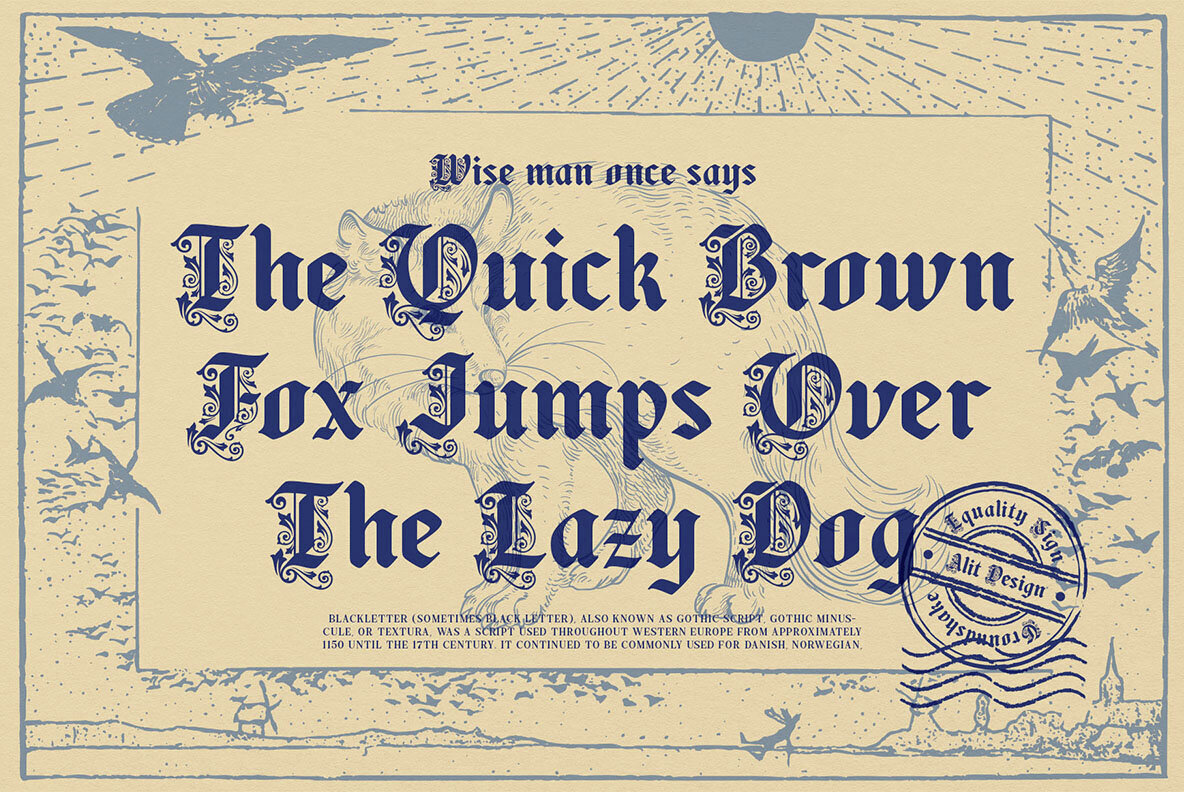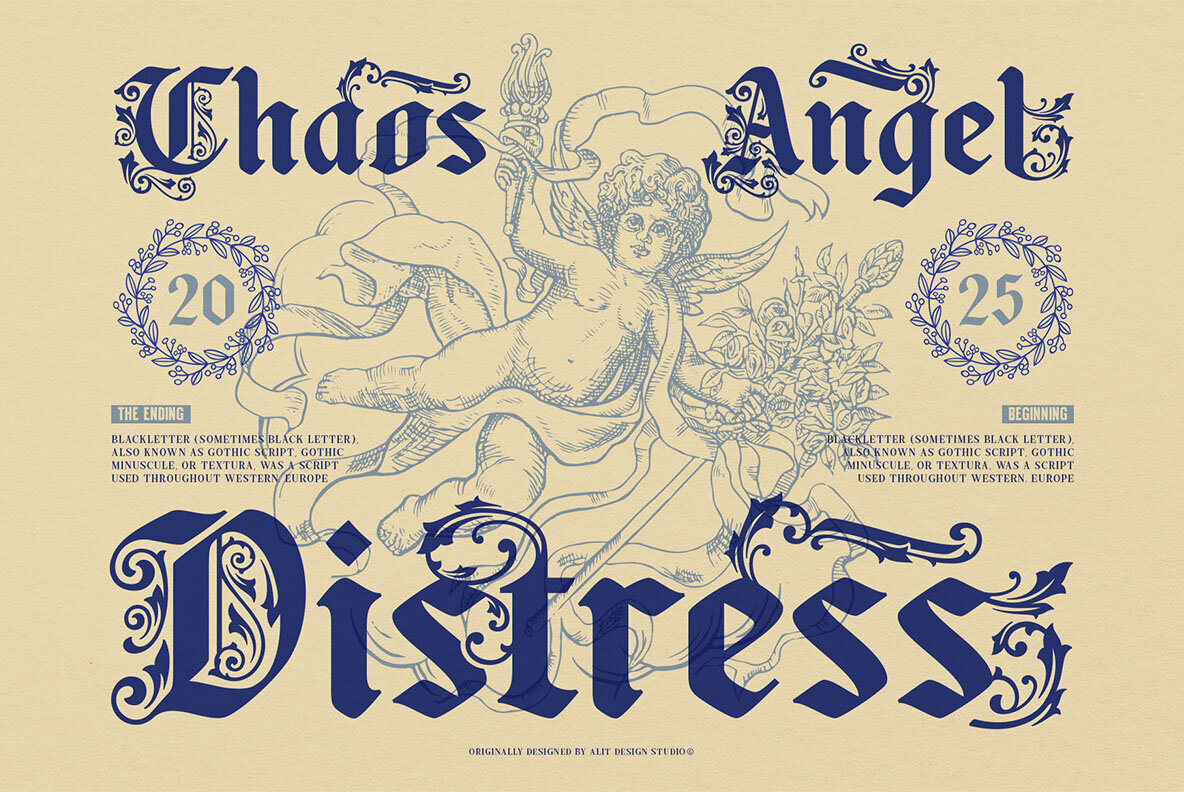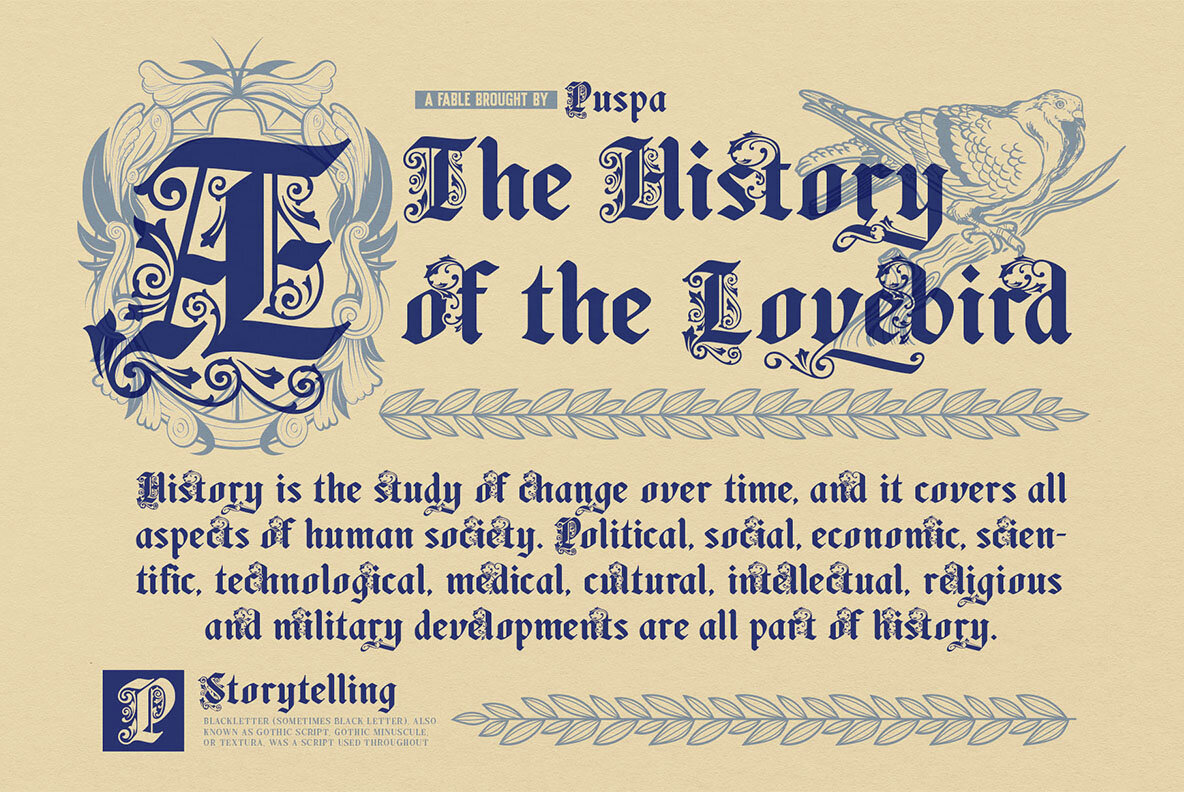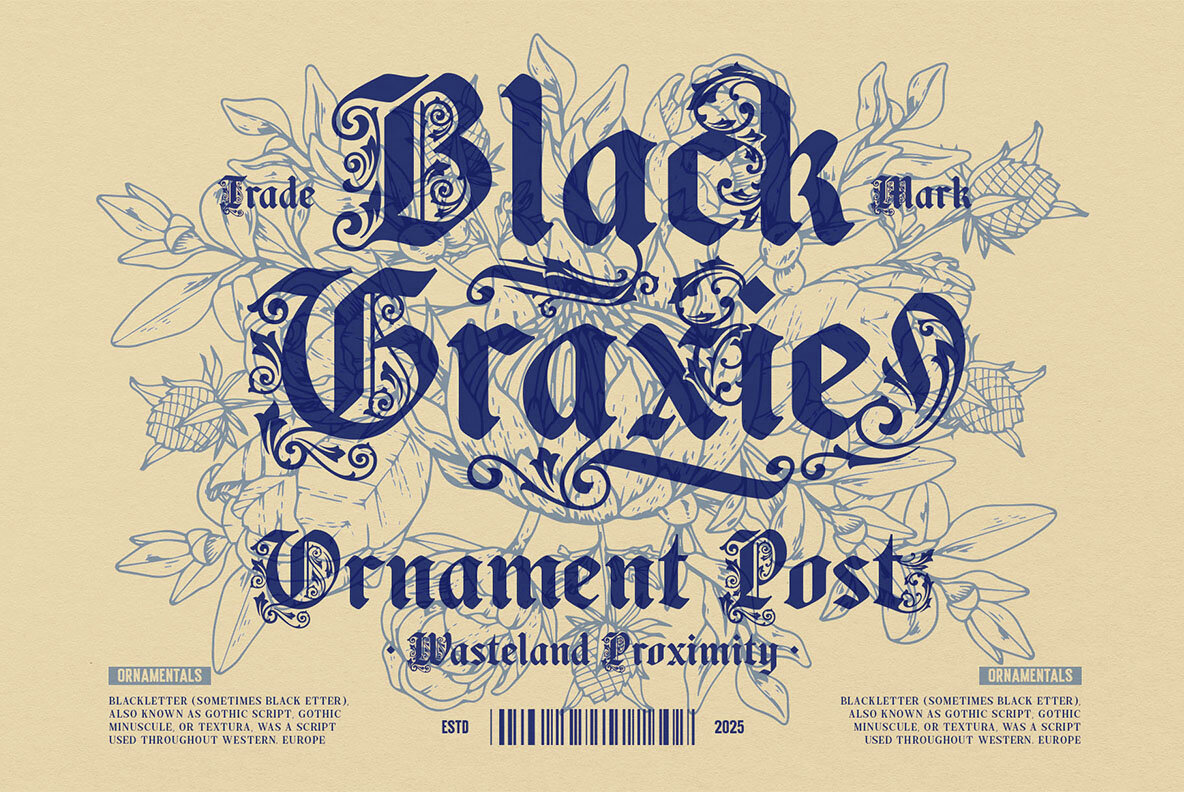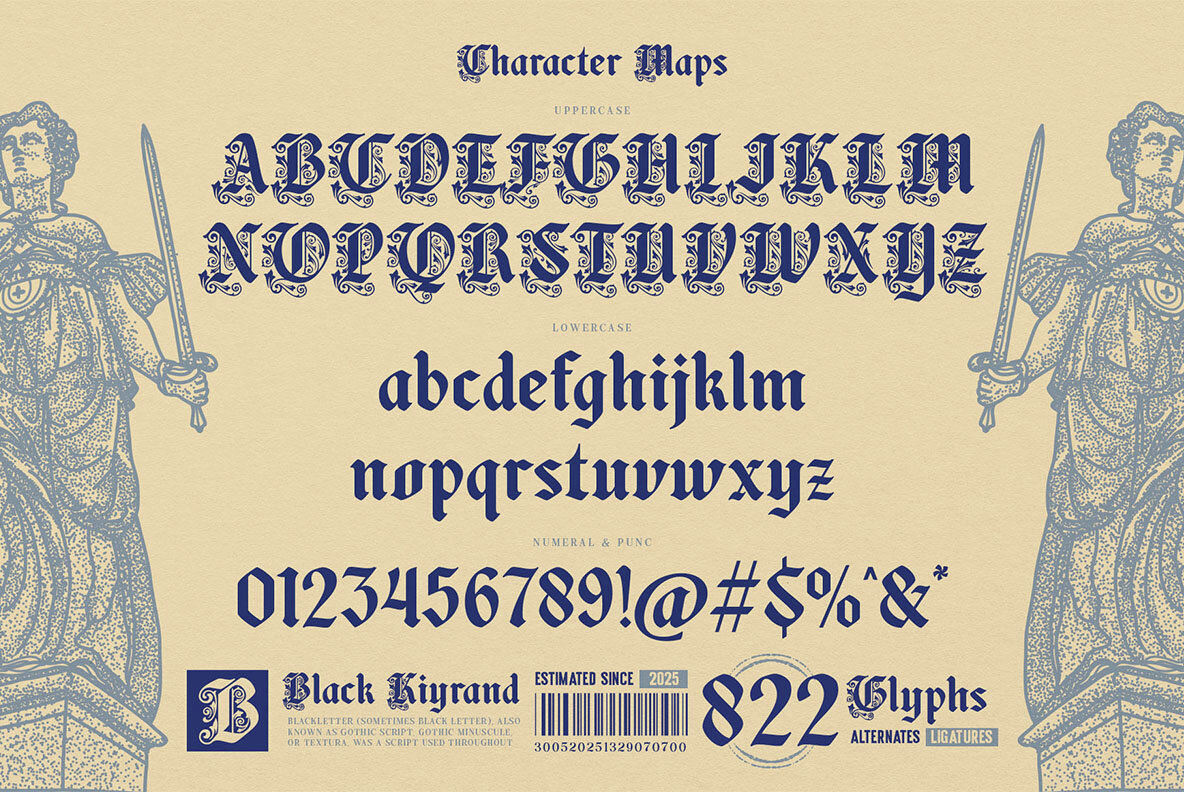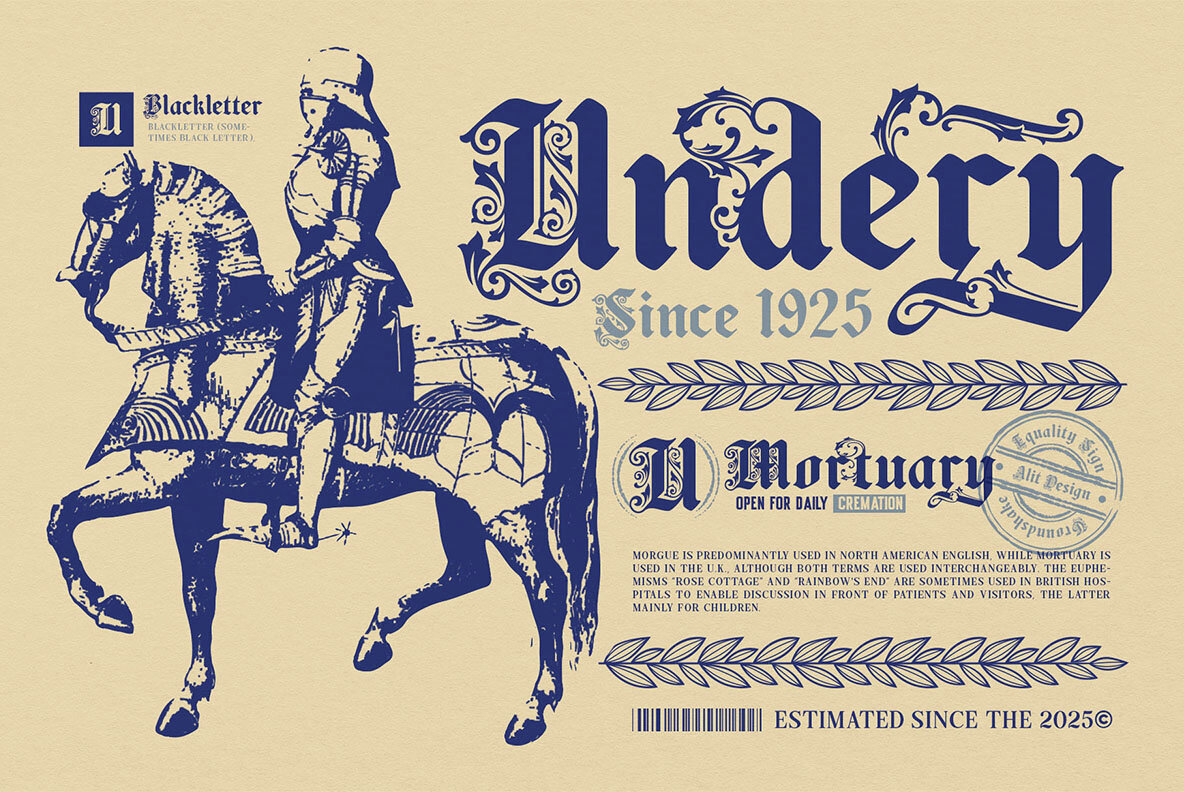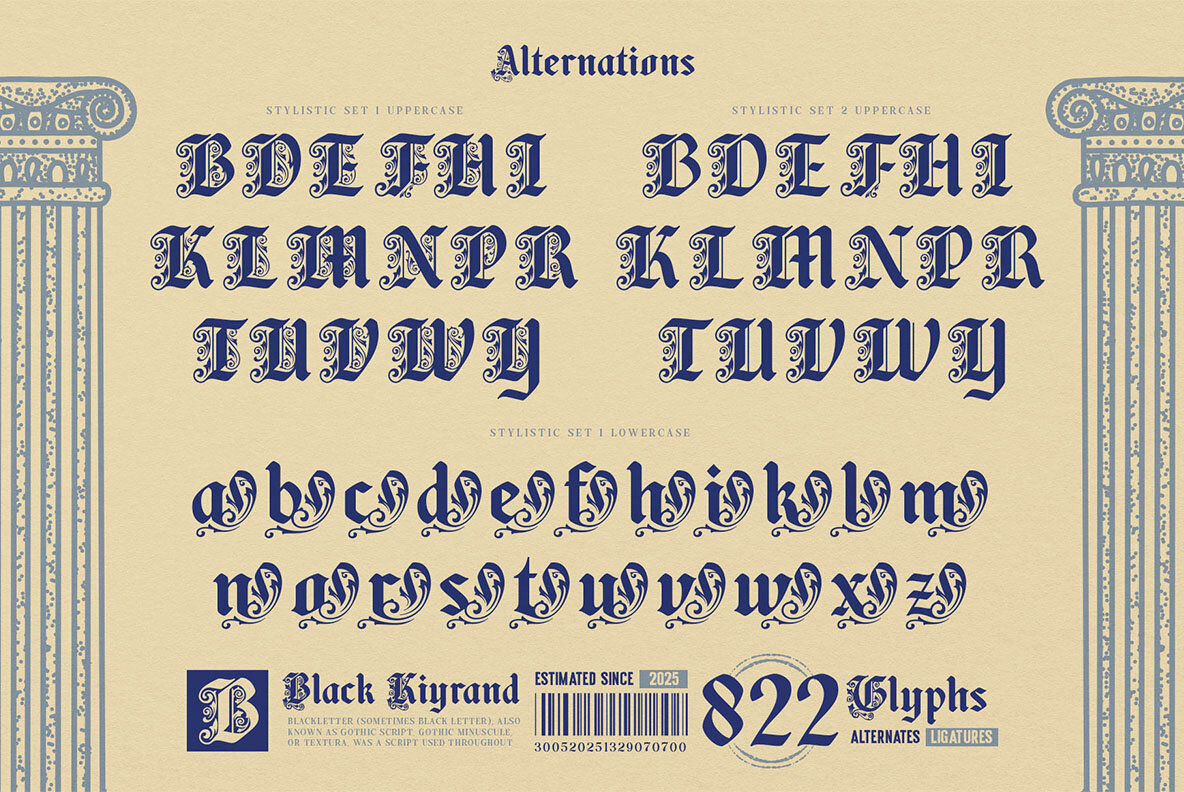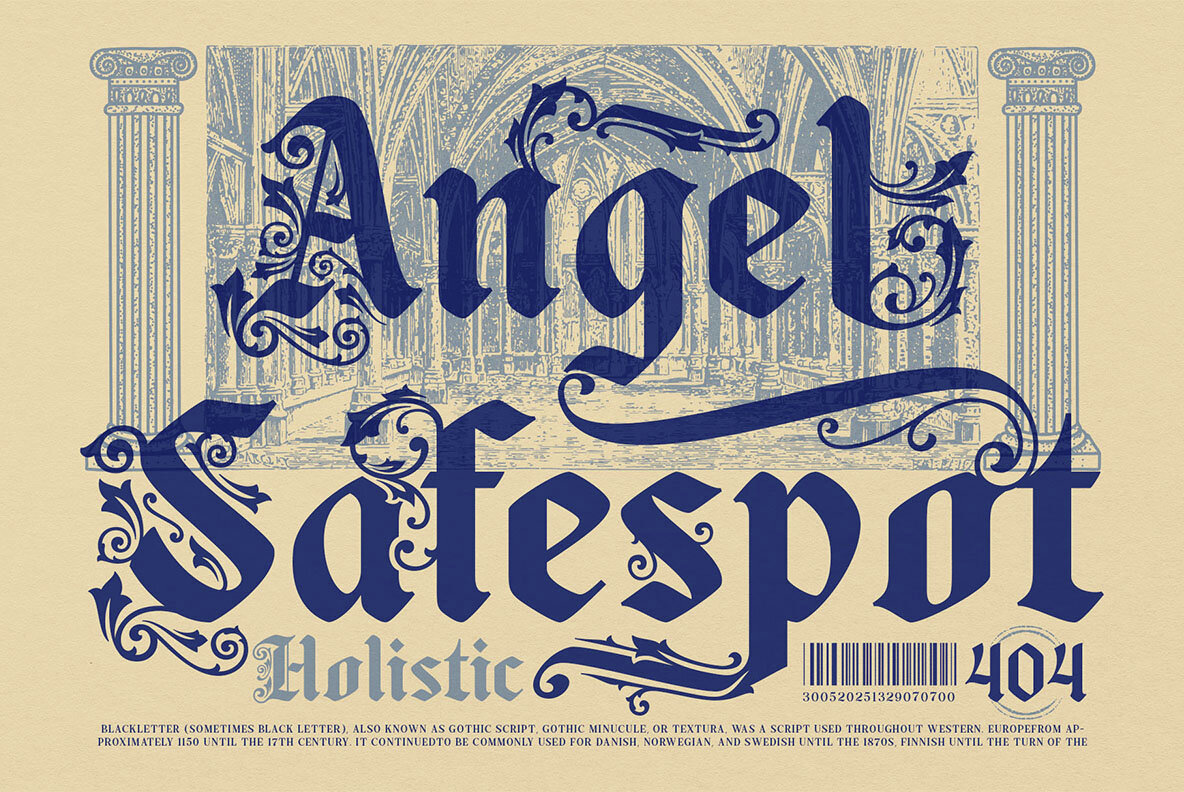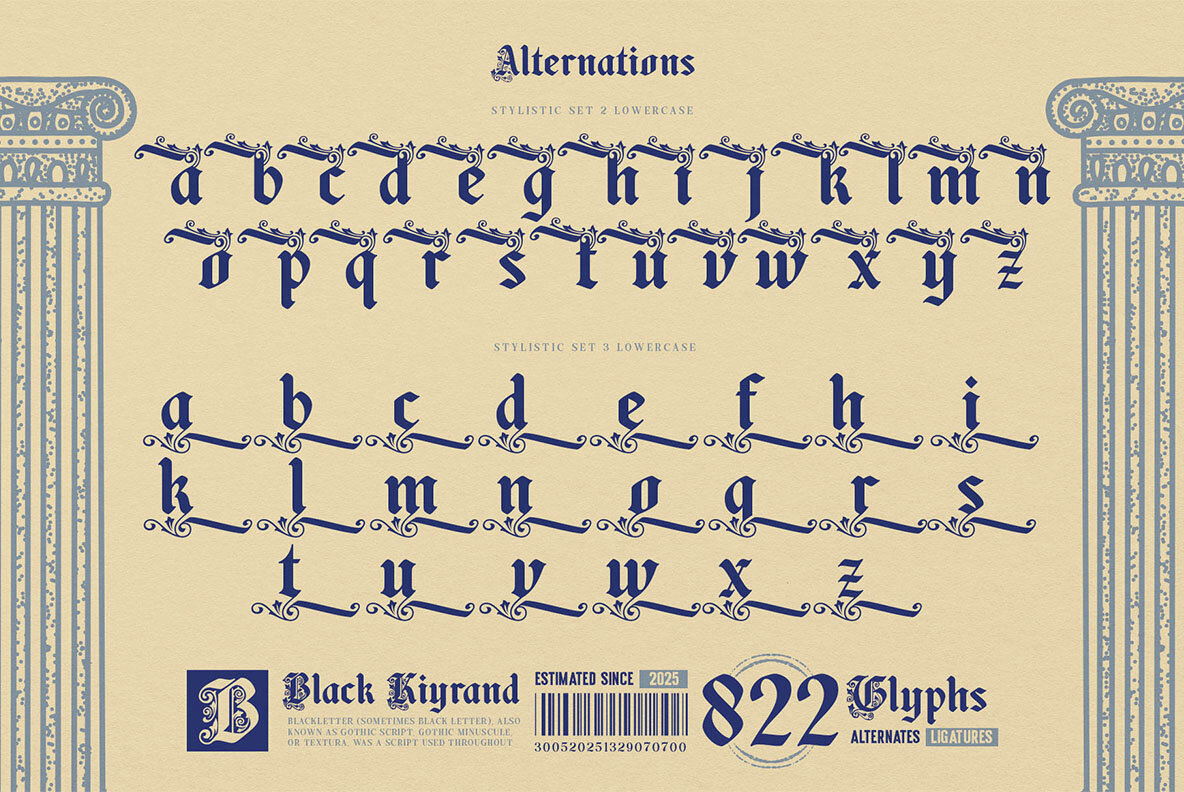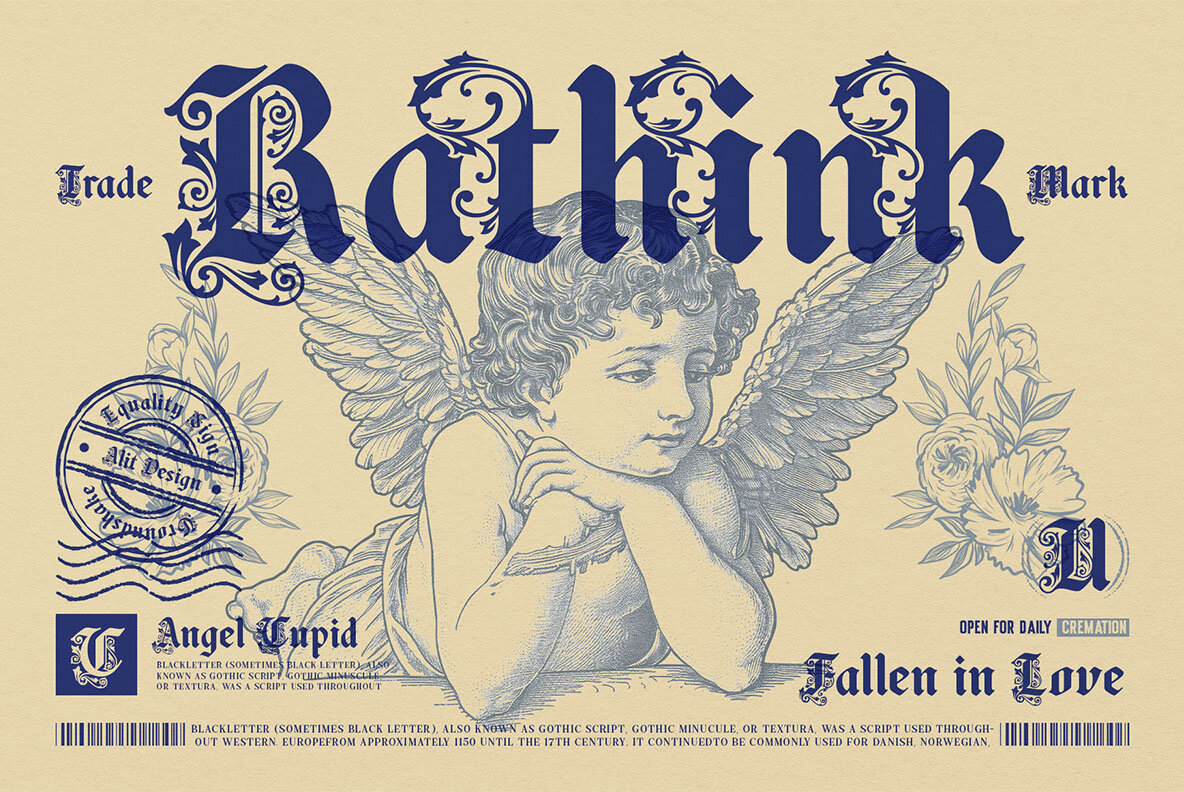
Black Kiyrand Font
expand_font Black Kiyrand Font Unveil the regal charm of Black Kiyrand: A modern twist on medieval calligraphy. Perfect for vintage designs and gothic branding. Blackletter,Gothic,Vintage,Ornamental,Textura,Old English,Classic,Old Style,Victorian,Historical,Ornate,Dramatic Explore Exceptional Fonts for Digital and Traditional Media Fontpath offers a large variety of fonts for every designer, all at affordable prices and in multiple formats. Browse our best in class fonts today for all your creative needs, you can find everything you need right here at our site! Fonts,sans,sans serif,retro,script,decorative,title,FontPath 20140312040223 Fontpath offers 200,000+ of the most professional fonts found online, start downloading today! Real-Time Font Discovery at Fontpath
Black Kiyrand Font